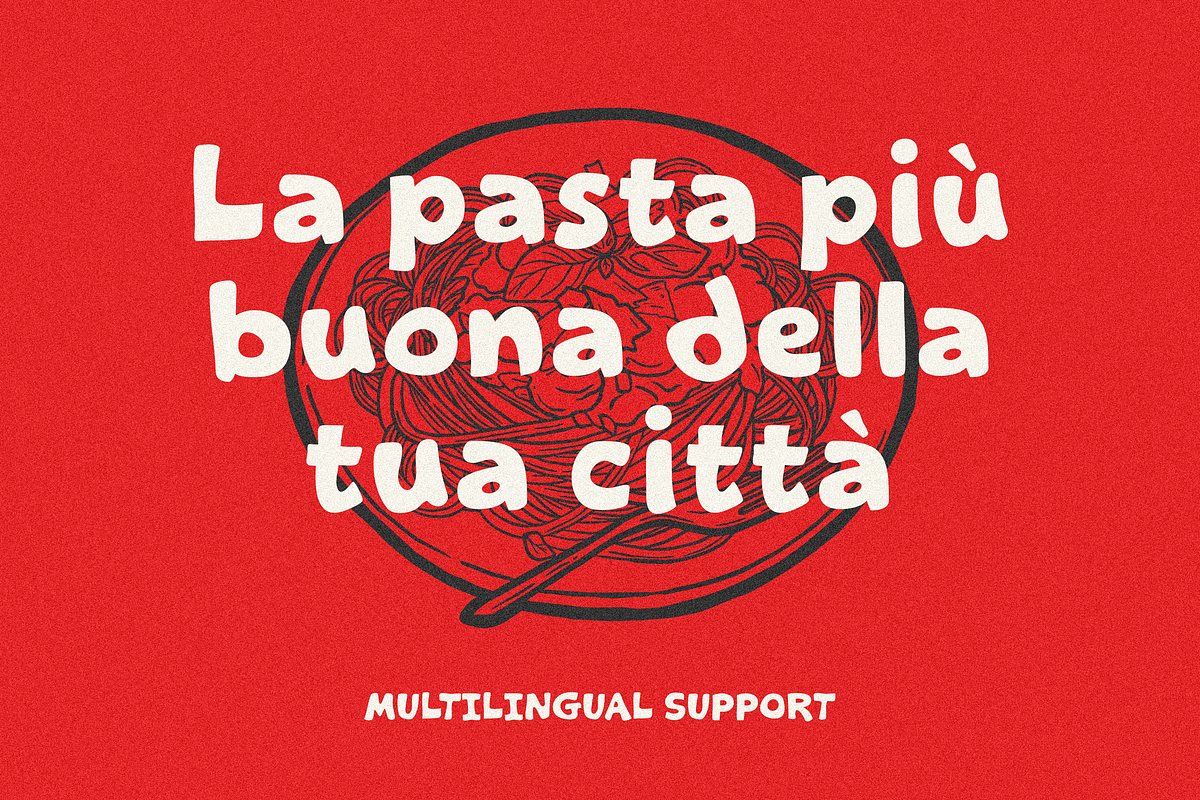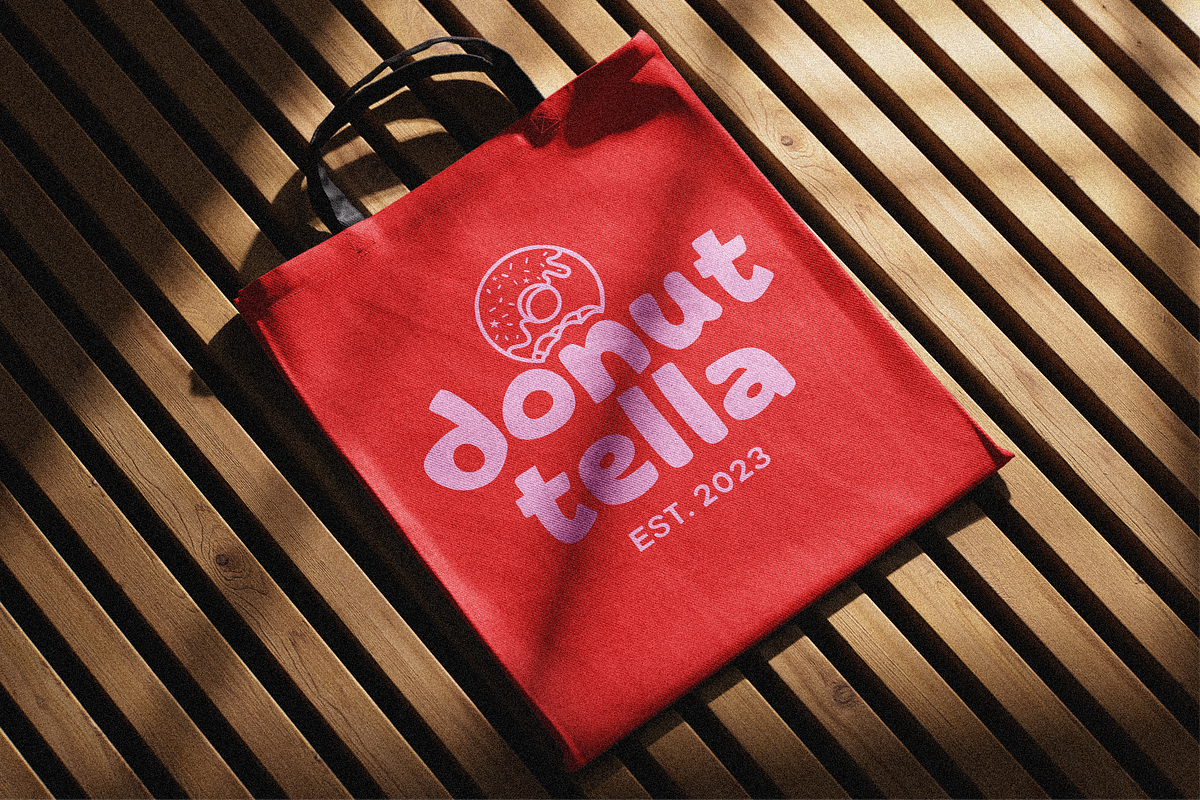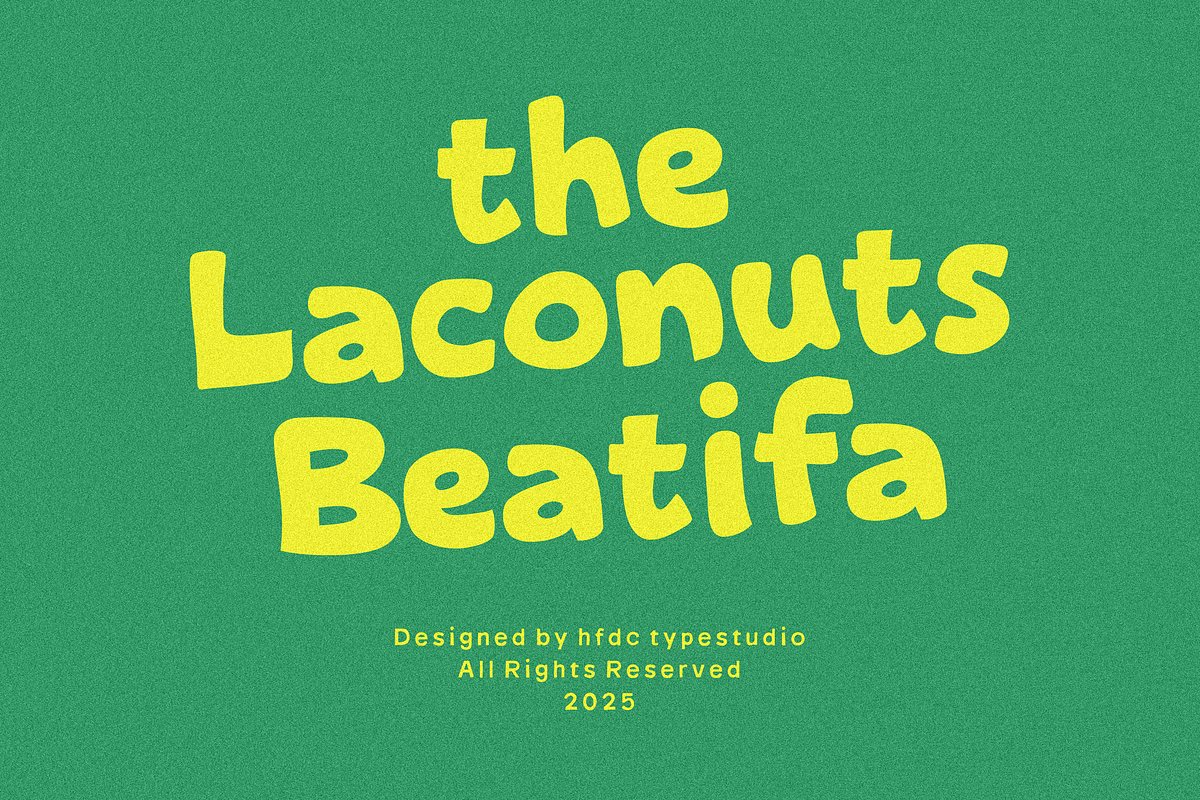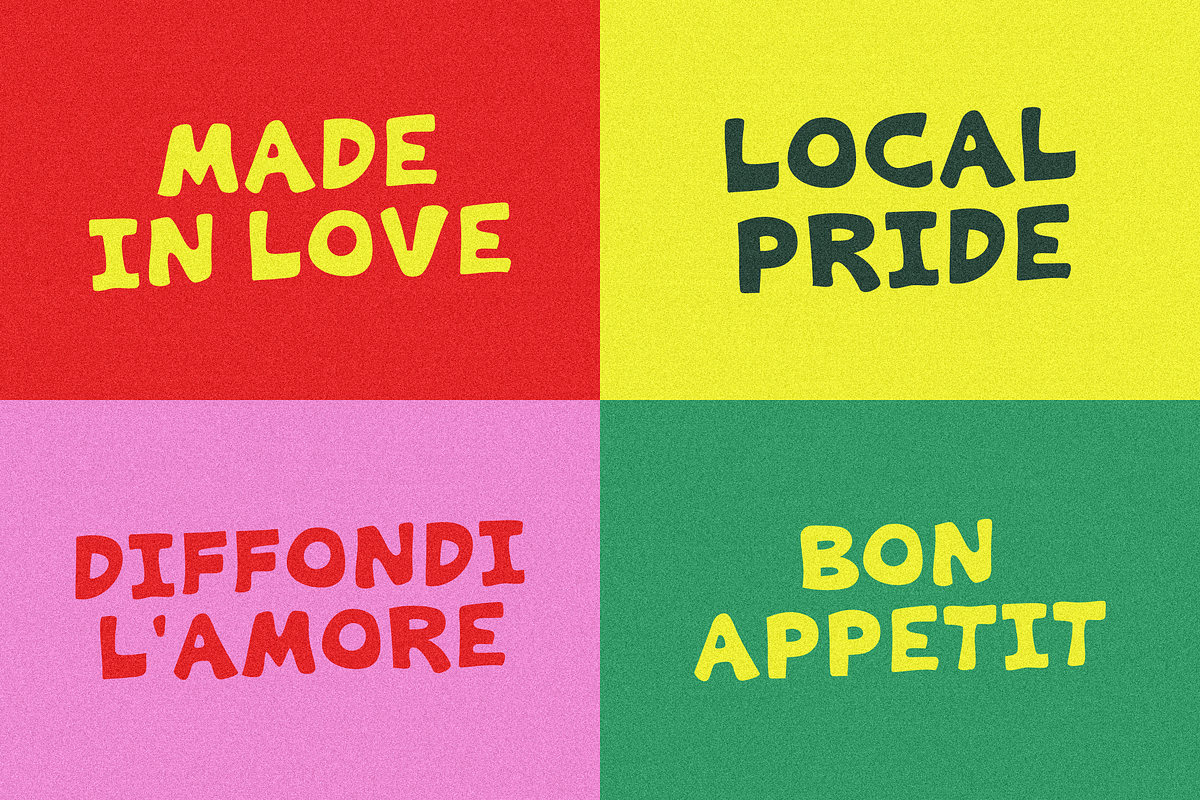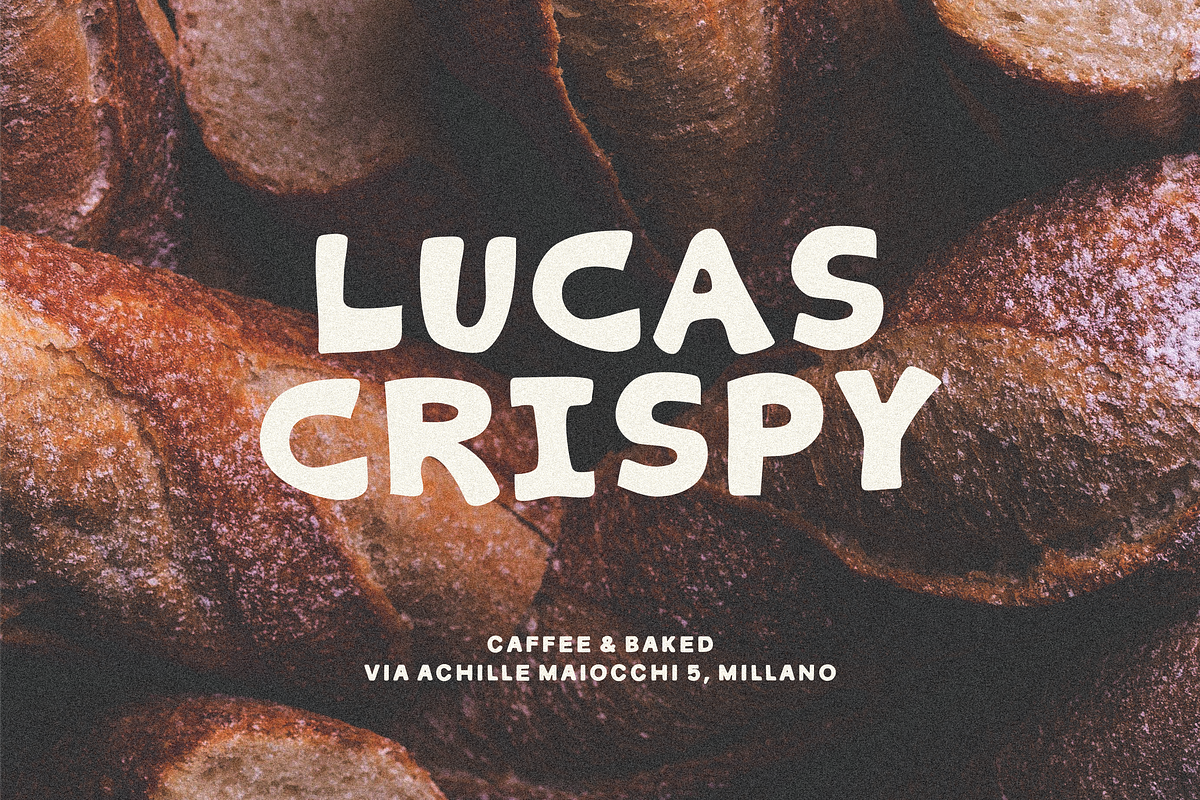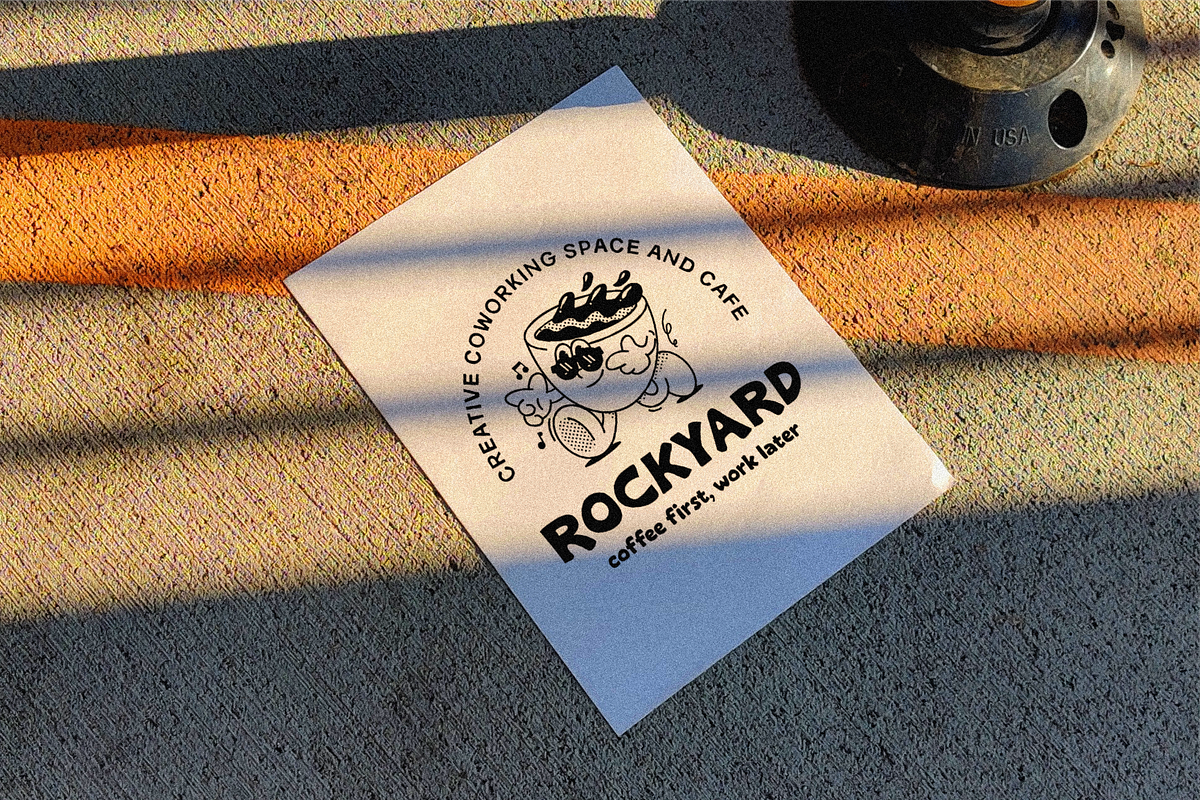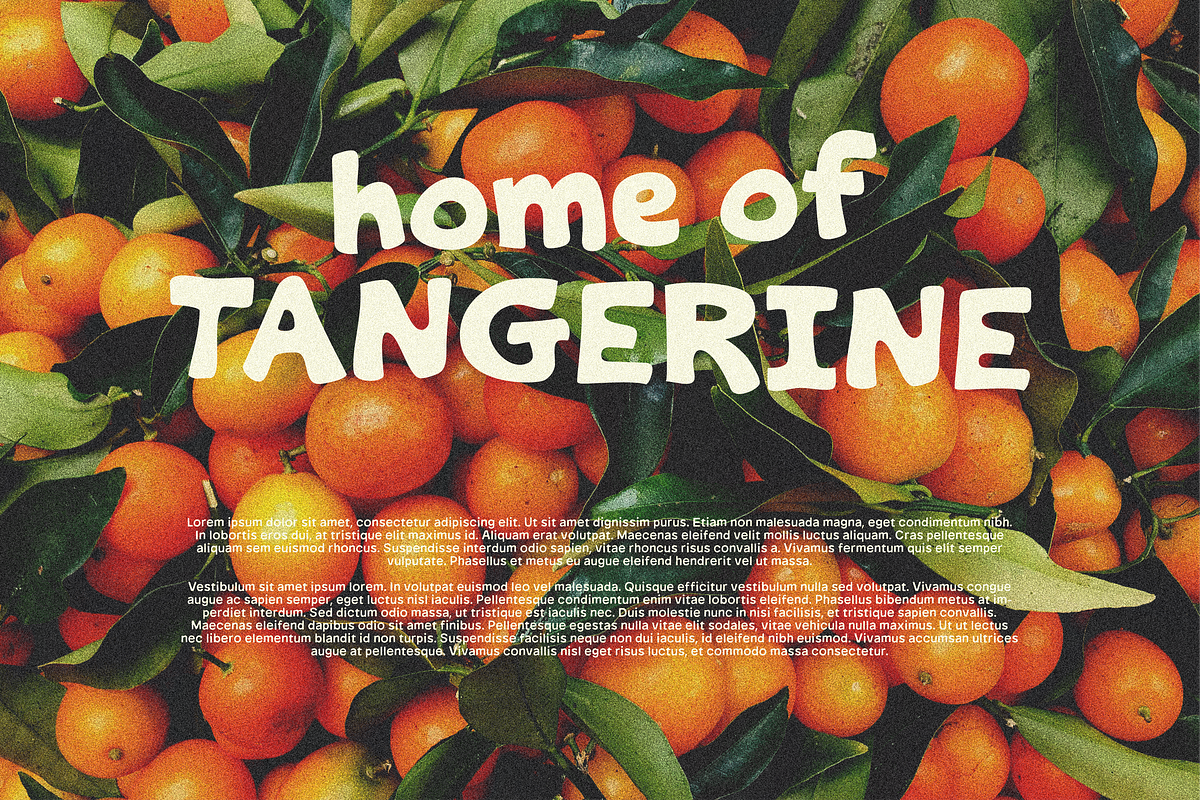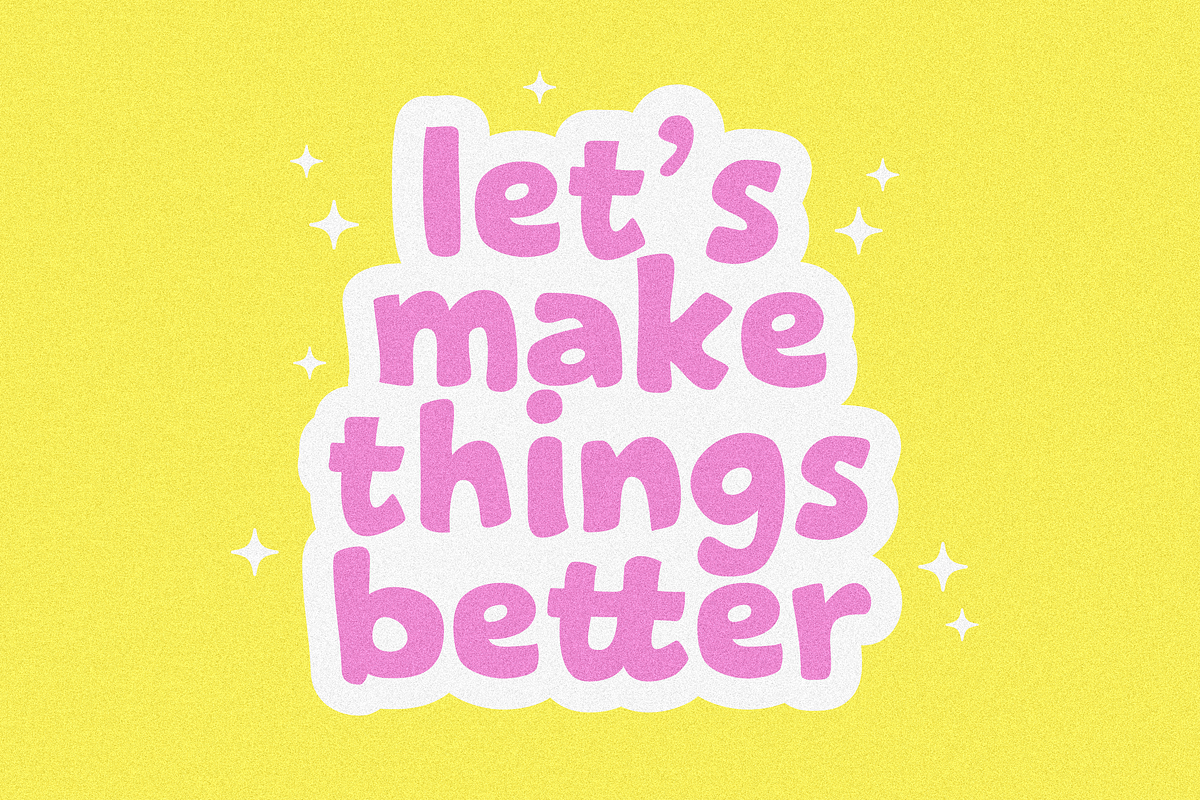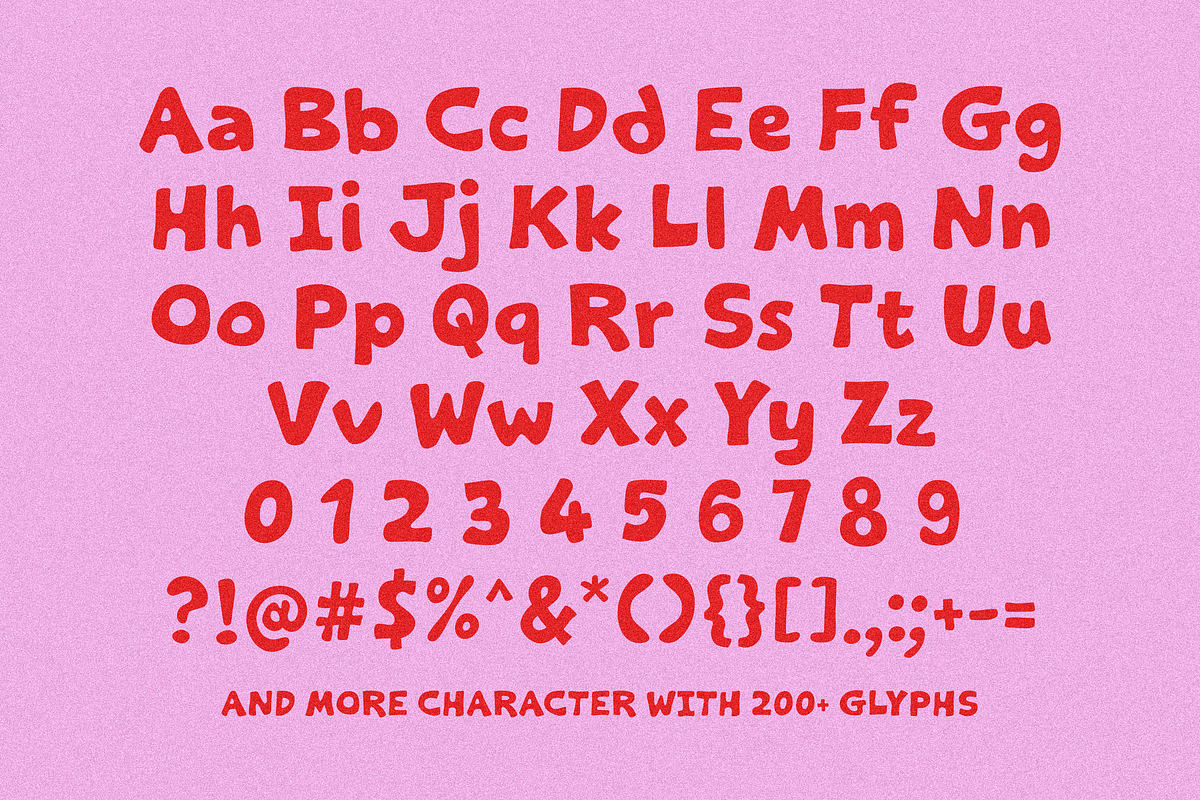
Laconuts Playful Font
Introducing Laconuts, a playful and quirky handwritten font that brings a tropical vibe to any design project. With its bold display style, Laconuts captures attention and adds a sense of fun, making it perfect for logos, packaging, landing pages, posters, and social media graphics. This font effortlessly combines a messy, cartoon-like aesthetic with a modern sans serif structure, making it ideal for brands looking to convey a light-hearted and energetic personality. Laconuts comes with a robust glyph set of around 200+, ensuring you have the versatility needed for multilingual projects and diverse applications.
Crafted for those who want to stand out, Laconuts is the go-to choice for businesses in the creative and lifestyle sectors. Whether you're designing a vibrant logo for a kids’ brand or eye-catching packaging for a tropical beverage, this font will elevate your visual storytelling. Available in TTF, OTF, WOFF, and WOFF2 formats, Laconuts is ready to integrate seamlessly into your design workflow. Embrace the charm and whimsy of Laconuts and let your projects flourish with its unique character.